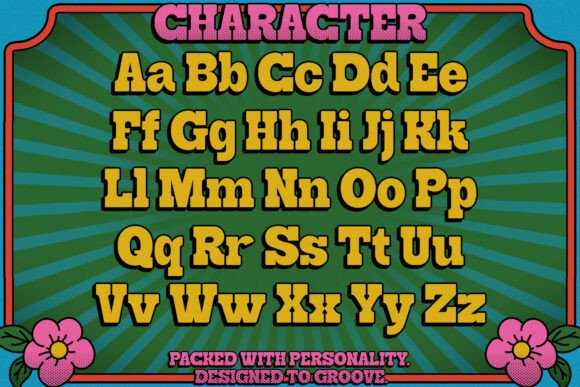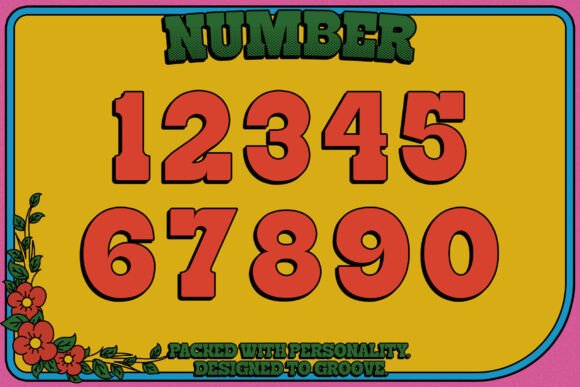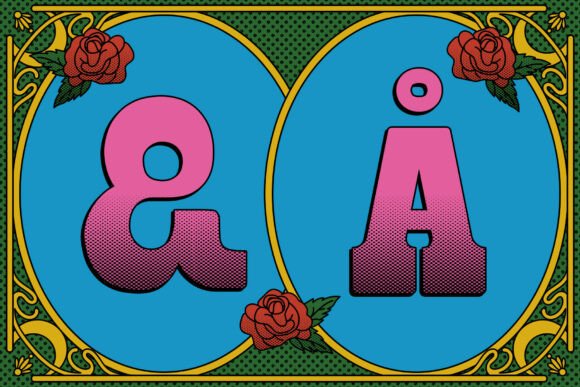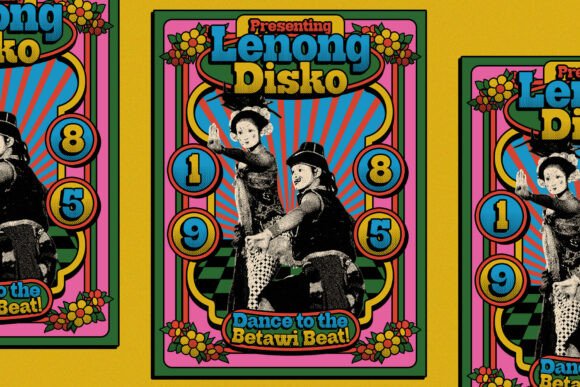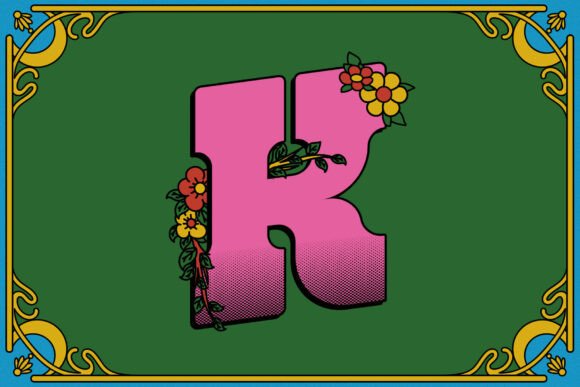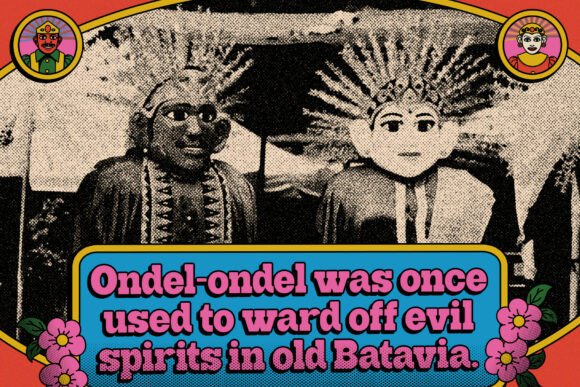
Introduction to Kembangirama Regular Font
Kembang Irama is a bold and joyful retro display font that pays tribute to the lively spirit of Betawi culture.
Inspired by the colorful aesthetics of vintage Indonesian art, this font captures the essence of traditional celebration with a groovy twist Its chunky letterforms, playful curves, and vibrant rhythm make it perfect for branding, posters, music events, packaging, and editorial designs.